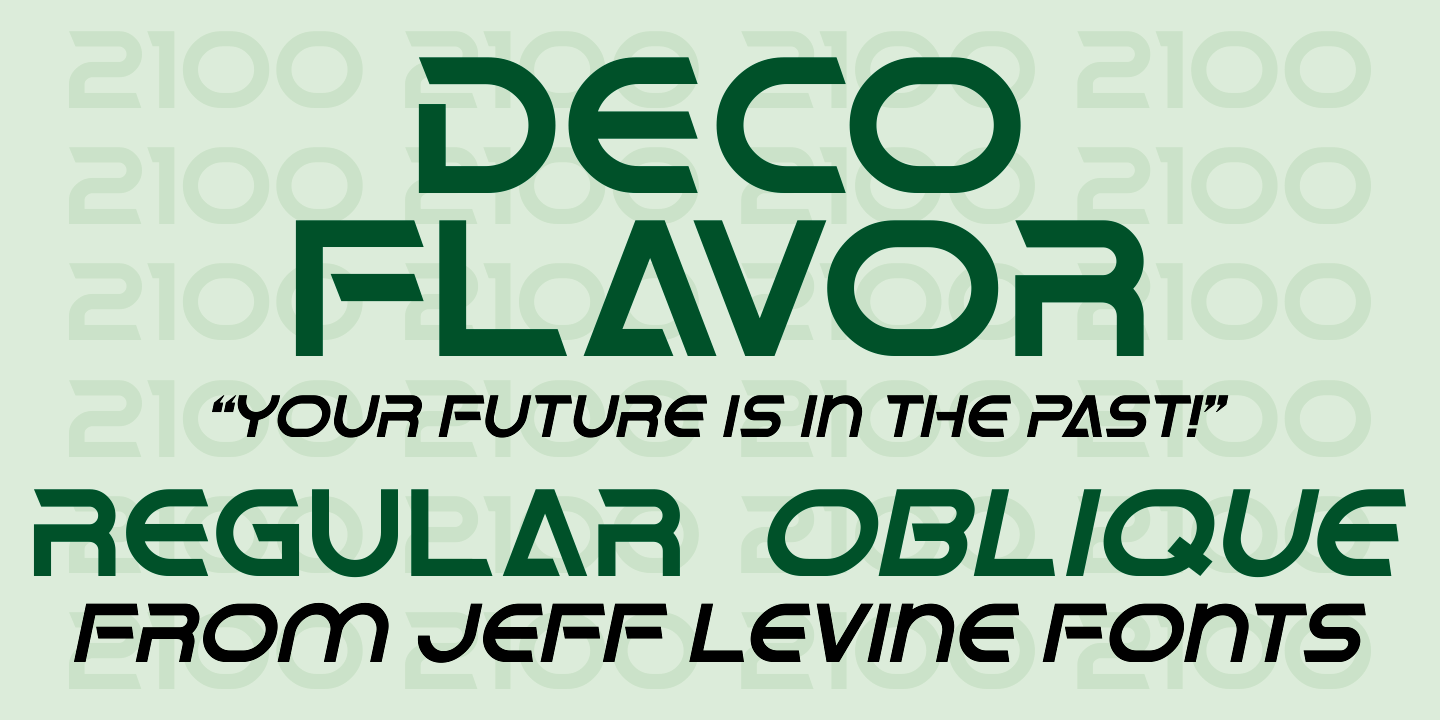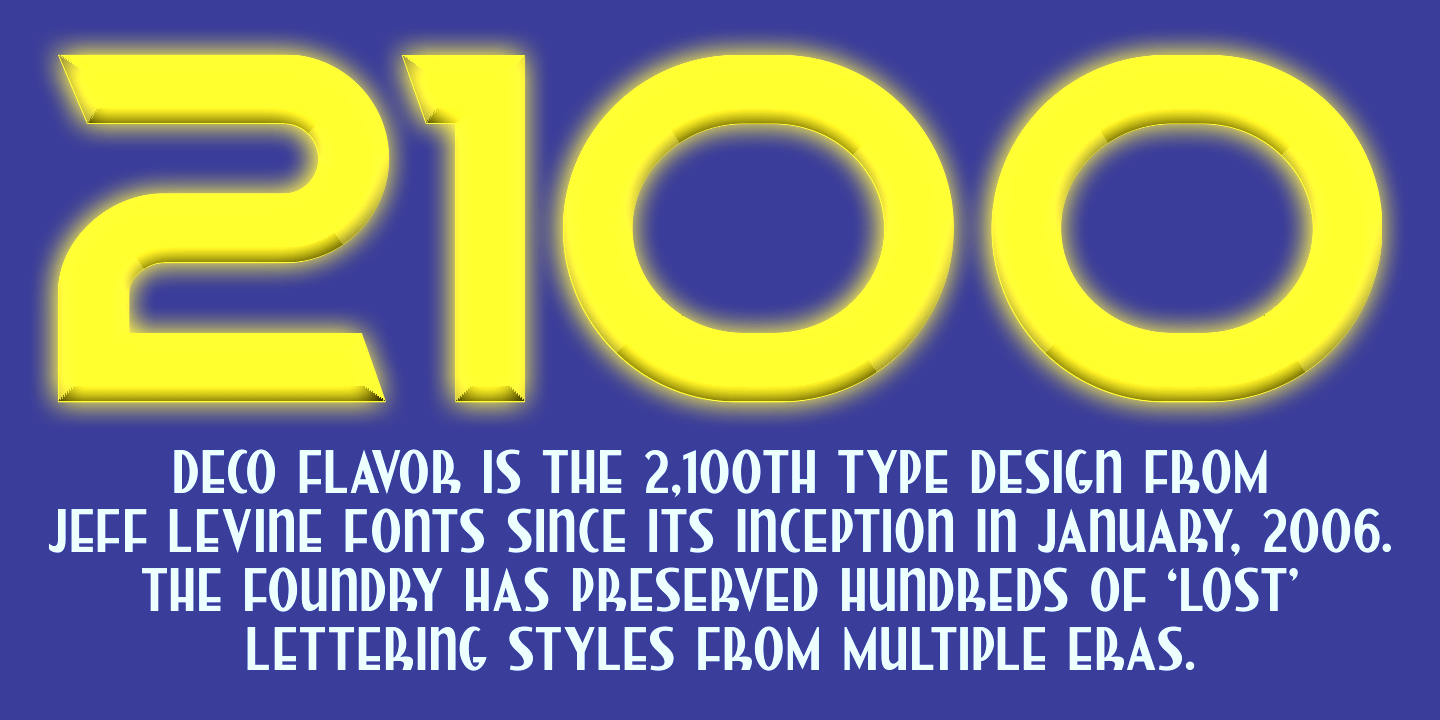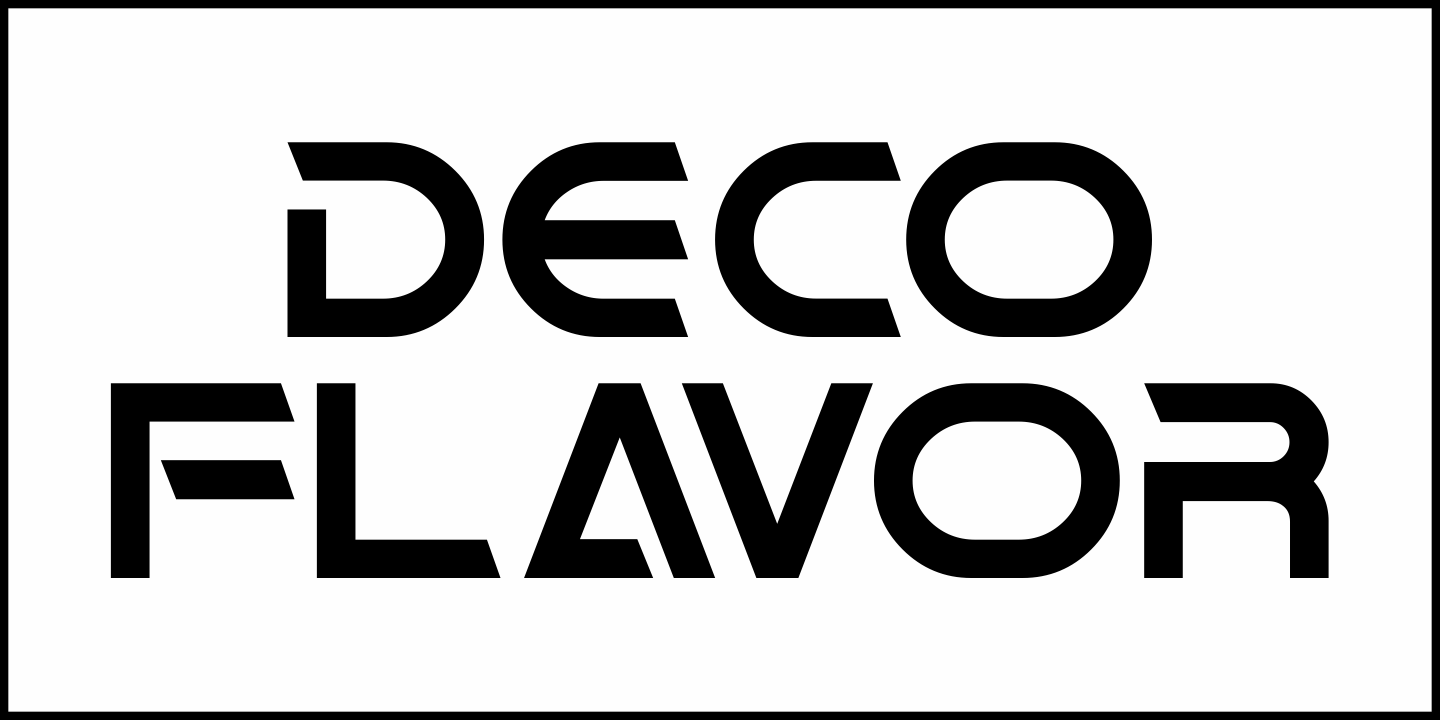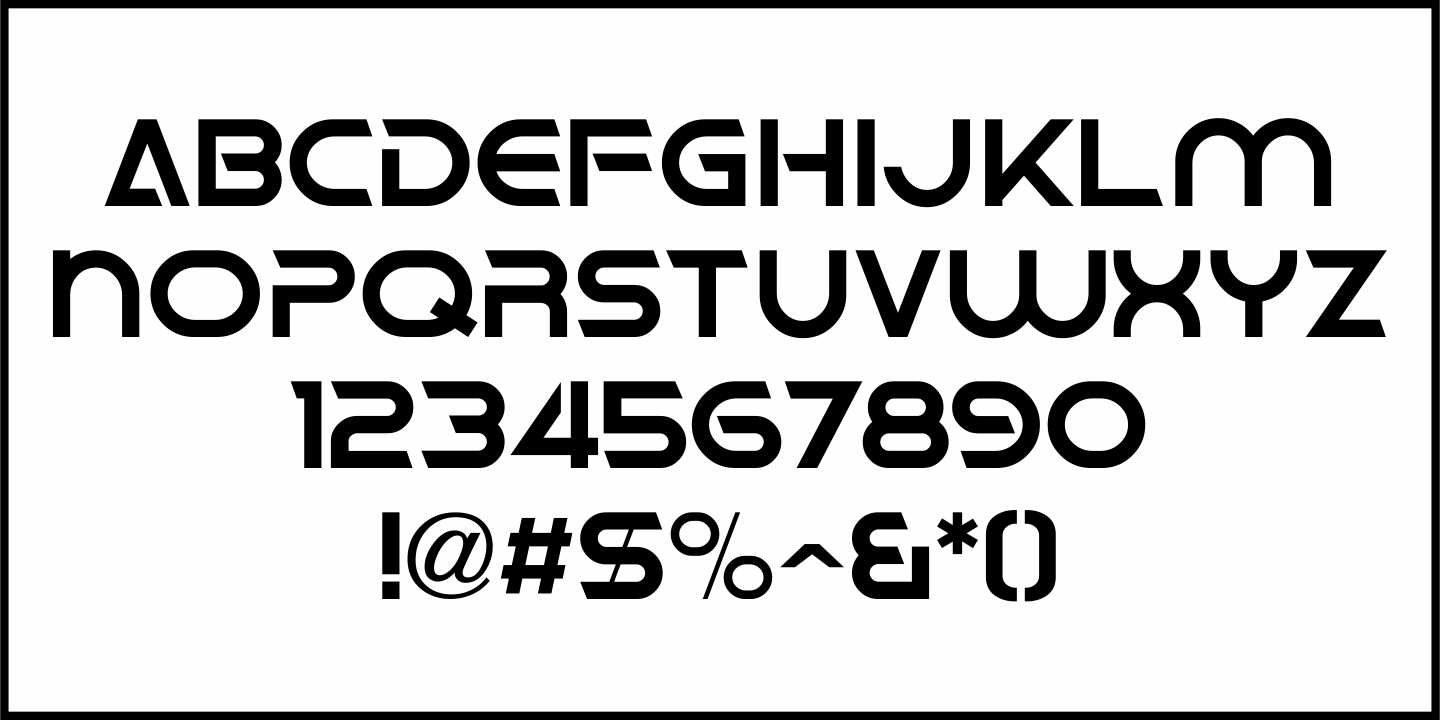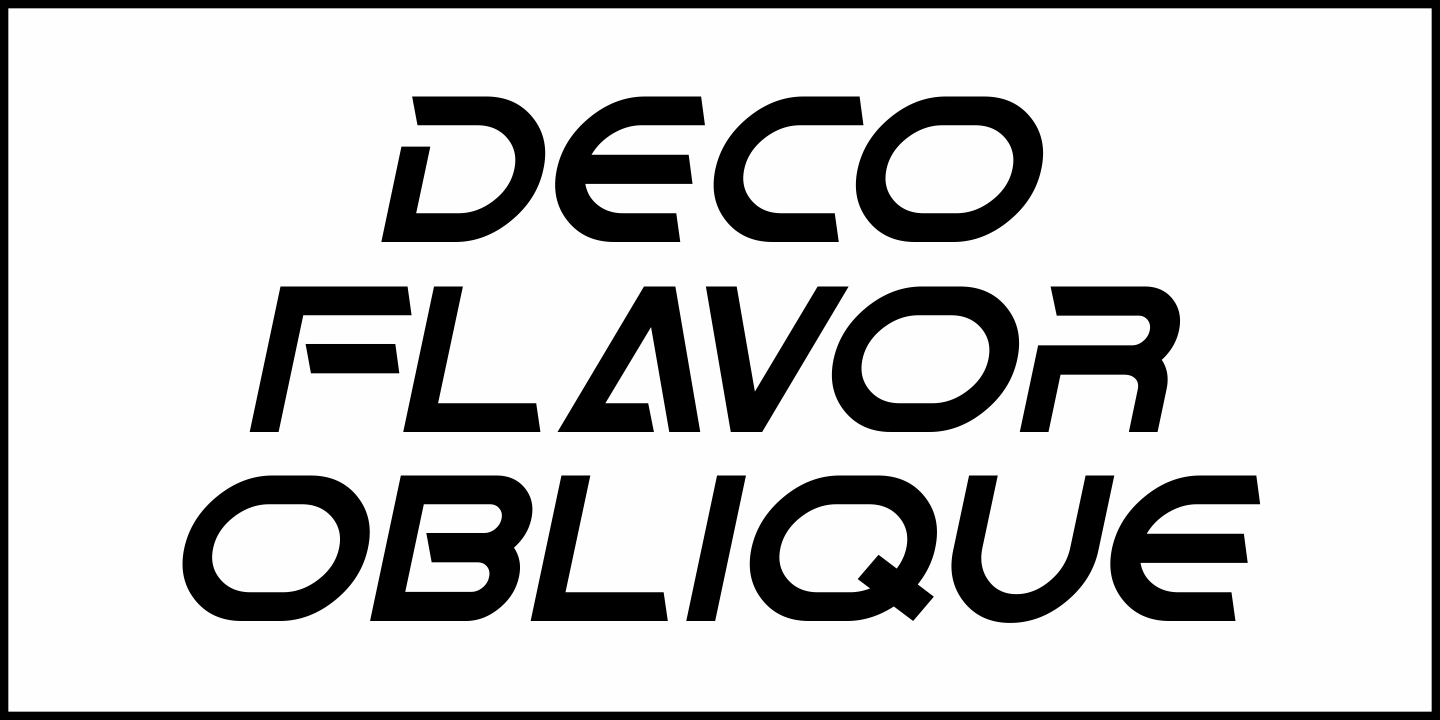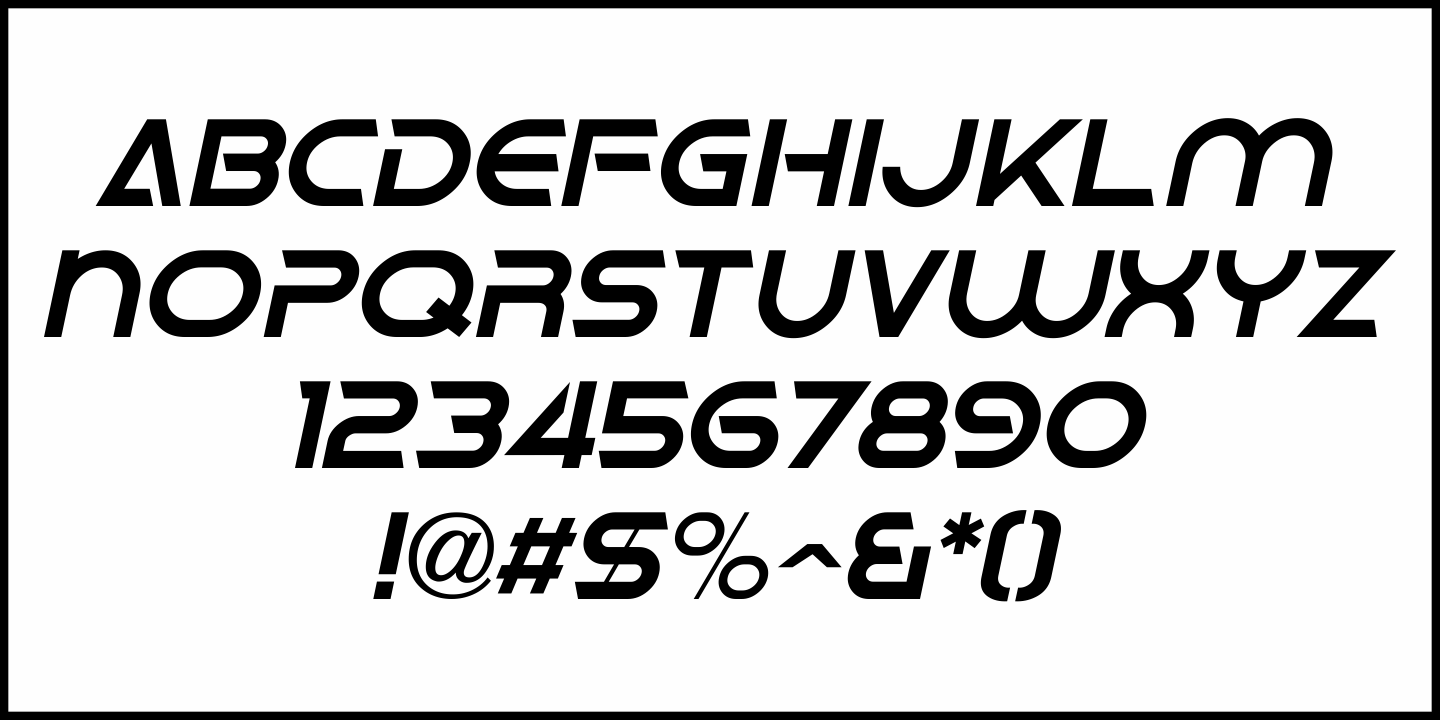
Deco Flavor
In the July 25, 1936 issue of the Motion Picture Herald, a showcasing of the Savar Theater in Camden, New Jersey provided an image of the marquee with sans serif lettering so ahead of its time it was both Art Deco and Techno in look and feel.
This is now available digitally as Deco Flavor JNL, in both regular and oblique versions.
Deco Flavor by Jeff Levine Fonts